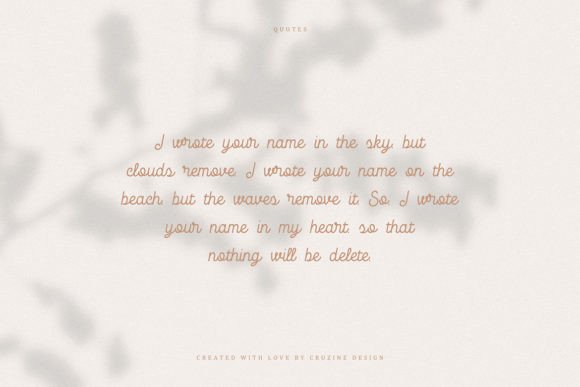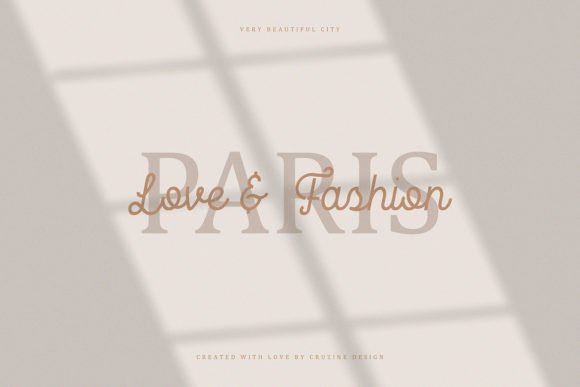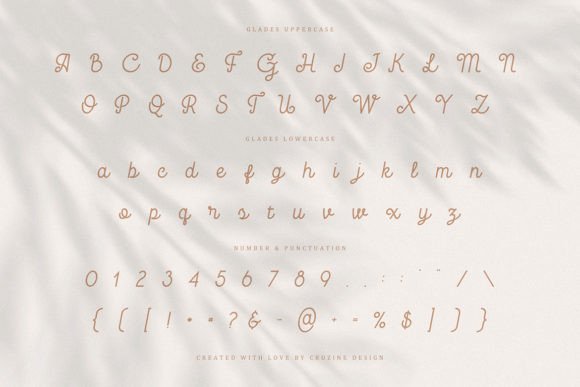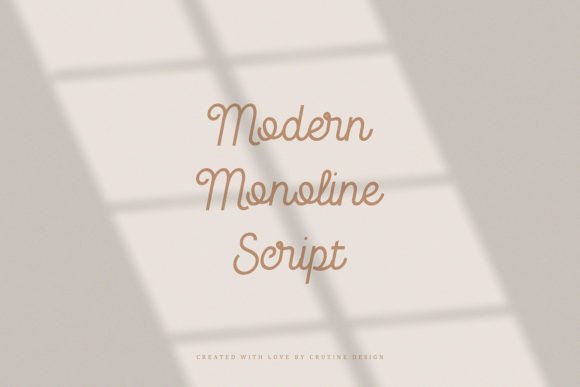
Introducing Glades Font: Elevate Your Designs with Elegance and Sophistication
In the world of typography, a font can make or break a design. For those seeking to infuse their projects with a touch of luxury and sophistication, look no further than the Glades Font. This stylish and elegant script font is designed to turn heads, making it perfect for high-end branding, wedding invitations, and upscale designs of all kinds.
The Essence of Elegance: Glades Font Characteristics
Glades Font is characterized by its delicate and flowing letters that exude an air of sophistication and grace. Each letterform is meticulously crafted to convey a sense of refinement and poise, ensuring that any project it is applied to is instantly elevated. The font’s timeless beauty is a key feature, allowing it to seamlessly integrate into a wide range of design contexts, from classic and traditional to modern and innovative.
Perfect for High-End Branding and Wedding Invitations
For designers and crafters working on high-end branding projects, Glades Font offers a level of elegance and sophistication that is hard to match. Its refined aesthetic ensures that logos, packaging, and marketing materials stand out with a touch of luxury, making brands more memorable and impactful. Similarly, for those creating wedding invitations and other ceremonial designs, Glades Font provides a beautiful way to convey the significance and joy of the occasion. Its flowing script and elegant letterforms add a romantic and personal touch, making each invitation a keepsake.
PUA Encoded for Effortless Design
One of the standout features of Glades Font is its PUA (Private Use Area) encoding. This means that designers have effortless access to all glyphs and swashes, allowing for greater creativity and flexibility in design. The PUA encoding enables users to easily select and apply the various alternates and decorative elements that come with the font, making the design process smoother and more intuitive. This feature is especially beneficial for those working on detailed projects where time and efficiency are of the essence.
Adding a Touch of Luxury to Any Project
The versatility of Glades Font is one of its most compelling attributes. Whether you’re working on a luxury brand campaign, a wedding invitation suite, or any other high-end design project, this font has the ability to transform your work. Its elegant and sophisticated nature means it can be used across a variety of mediums, from digital platforms to print materials, consistently delivering a high-end look and feel.
Why Choose Glades Font?
- Elegant and Sophisticated: Glades Font brings a level of elegance and sophistication to any project, making it perfect for high-end designs.
- Timeless Beauty: Its classic appeal ensures that your designs remain stylish and relevant for years to come.
- PUA Encoded: Offers easy access to all glyphs and swashes, making design a breeze.
- Versatile: Suitable for a wide range of projects, from branding and advertising to wedding invitations and more.
Glades Font is more than just a script font; it’s a design statement. With its delicate and flowing letters, it brings a level of sophistication and elegance that can transform any project into something truly unforgettable. Whether you’re a professional designer or a crafty DIY enthusiast, Glades Font offers the perfect combination of style, elegance, and usability. Experience the ultimate in style and elegance with Glades Font, and take your designs to new heights of luxury and refinement.